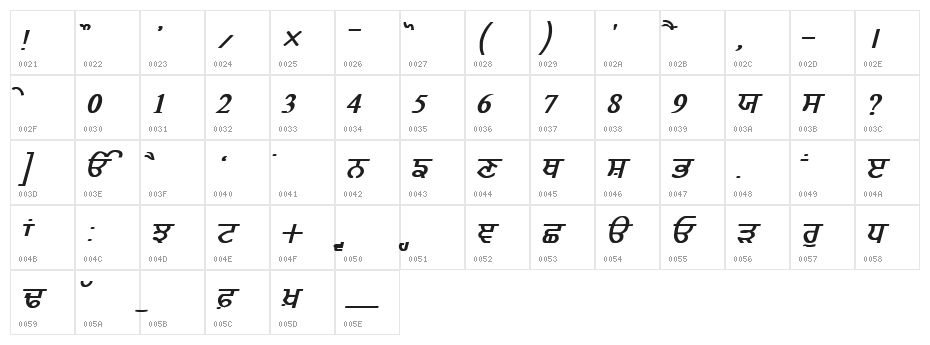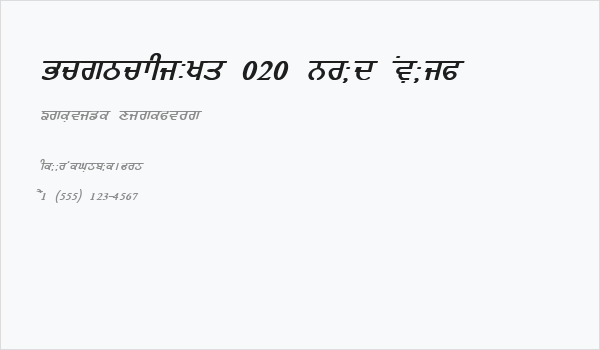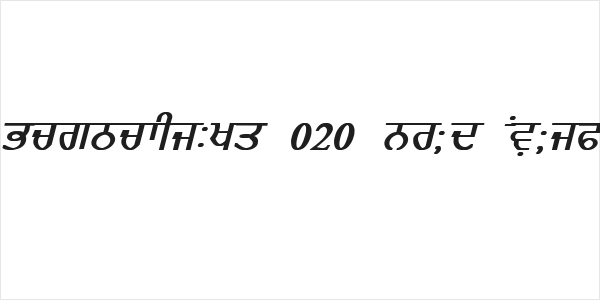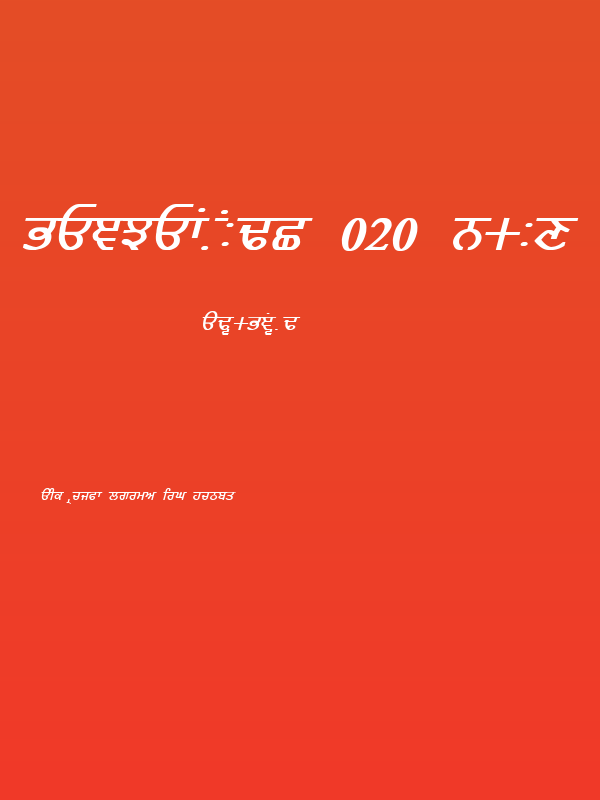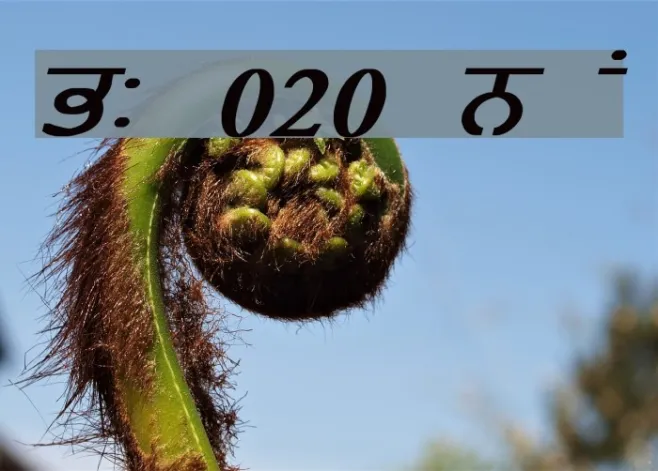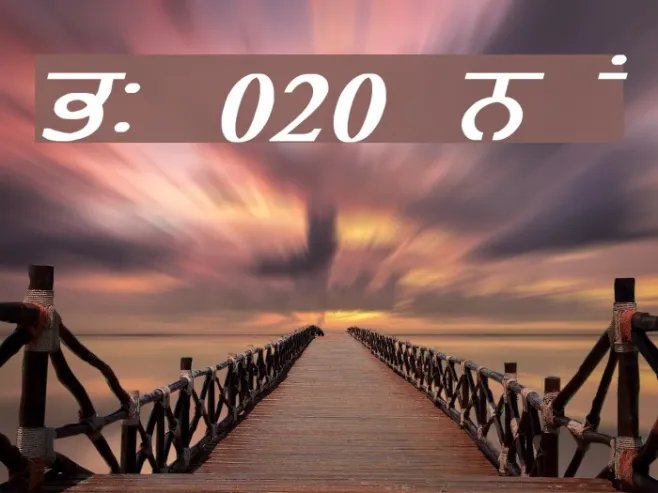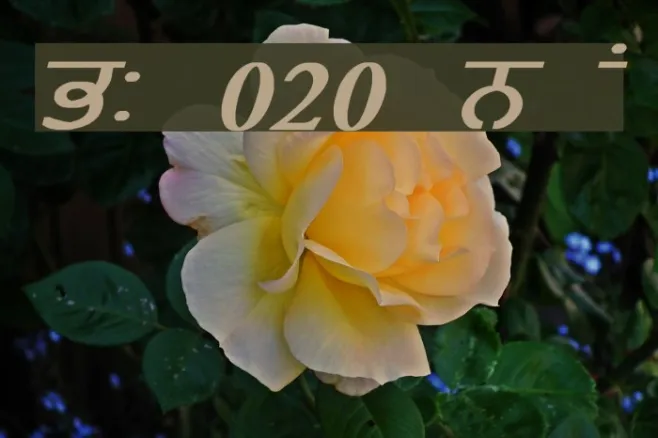
GurmukhiLys 020 Bold Italic Font
This font features a bold and italic style, showcasing a dynamic and expressive appearance. The characters are designed with a distinct slant, adding a sense of movement and fluidity. The strokes are thick and consistent, providing a strong visual impact. The numerals and special characters maintain the same boldness and italicized form, ensuring uniformity across the typeface. The overall design is modern yet retains a traditional touch, making it suitable for various applications.